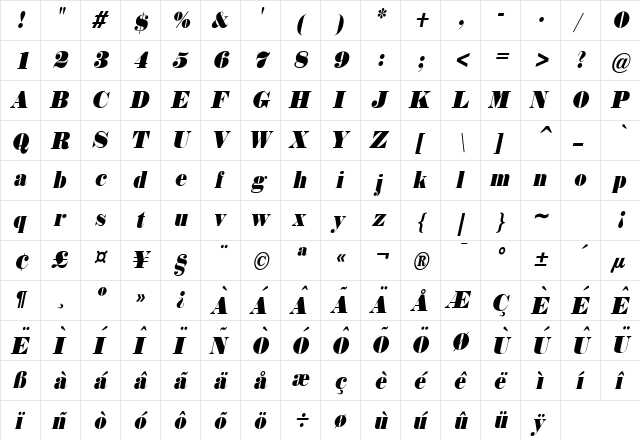
Norway Condensed Italic Font Preview
Design Context for Norway Condensed Typeface
Norway Condensed takes a measured approach to typography — its balanced proportions and neutral character make it a reliable workhorse for both digital and print work. The dynamic lean of this cut emphasises speed and emphasis in any layout. The condensed width makes it efficient for tight spaces without sacrificing legibility.
Pro Tip: Use Norway Condensed for emphasis, pull quotes, and subheadings where its slanted energy can add rhythm to the layout.